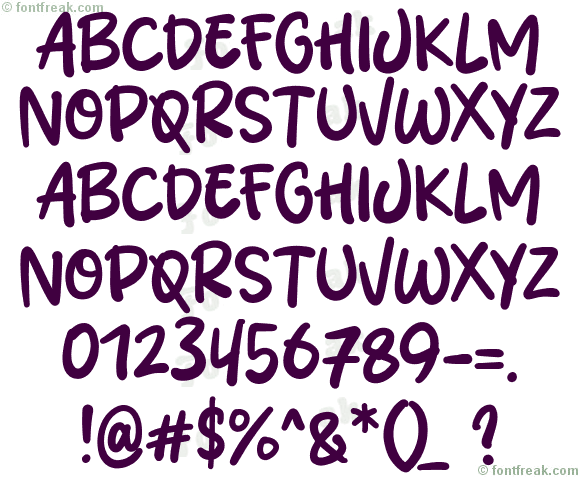
Learn Thing
About Learn Thing
The "Learn Thing" font by Syaf Rizal is a captivating display font that embodies a unique blend of creativity and approachability. This handwritten style font features a playful, casual appearance, making it perfect for conveying a sense of warmth and friendliness. The strokes are bold yet slightly irregular, which adds an organic feel to the text. With its moderate contrast and generous spacing between characters, "Learn Thing" provides excellent readability, making it suitable for various applications.
The font is particularly well-suited for use cases such as educational materials, children’s book covers, and playful branding initiatives. It can also enhance the visual appeal of social media graphics and posters aimed at a younger audience. Additionally, small business owners looking to create engaging marketing materials will find "Learn Thing" invaluable for crafting eye-catching menus, flyers, and event invitations.
What sets "Learn Thing" apart is its ability to evoke a sense of curiosity and engagement. The whimsical yet clear design encourages interaction, making it ideal for projects that aim to educate or inform. Its friendly aesthetic not only captures attention but also builds a connection with the audience, making it a standout choice for anyone looking to leave a lasting impression. Whether you are a designer, educator, or business owner, "Learn Thing" is a font that brings a refreshing energy to your work.